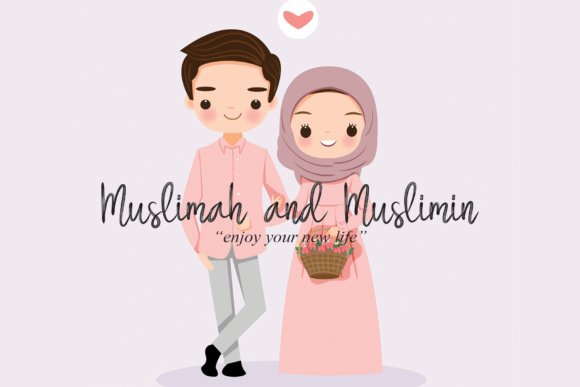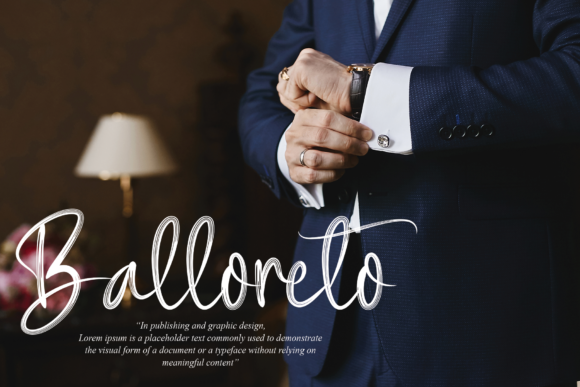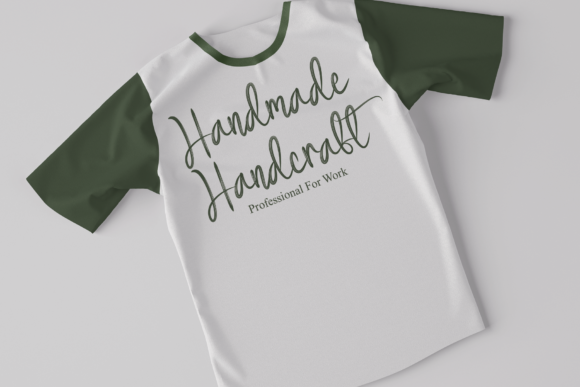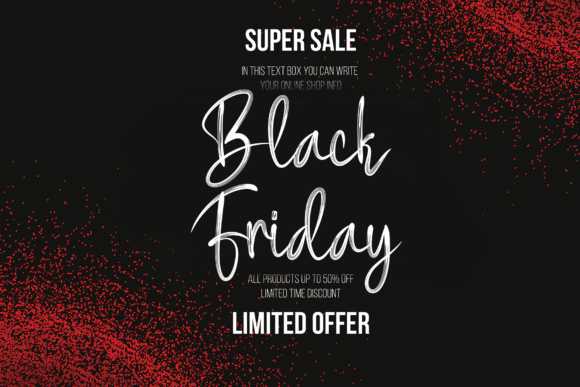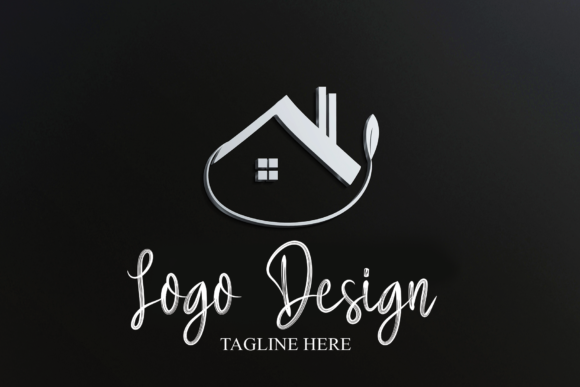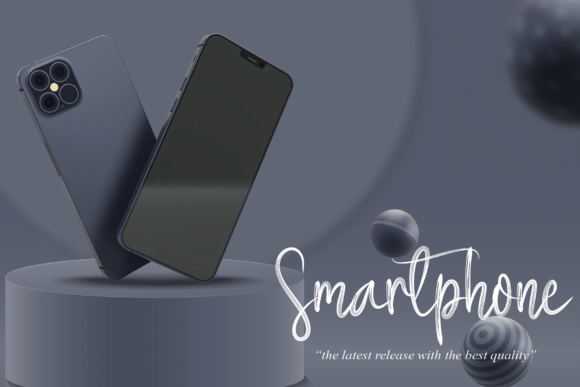
Introducing Handika Font: Elevate Your Designs with Luxury and Elegance
Are you a designer or crafter looking for a unique and stunning font to add a touch of luxury to your projects? Look no further than Handika Font, a beautiful and light handwritten font that is sure to make your designs stand out. With its distinctive feel and impressive impact, Handika Font is the perfect choice for anyone seeking to add a touch of elegance and sophistication to their work.
The Unique Features of Handika Font
Handika Font boasts a range of features that set it apart from other fonts. Its light and airy texture gives it a sense of delicacy and refinement, while its handwritten style adds a touch of warmth and personality. The font’s unique feel is both modern and timeless, making it suitable for a wide range of design projects, from branding and advertising to packaging and digital media.
Adding Luxury to Your Designs
So, what makes Handika Font so effective at adding a touch of luxury to your designs? The answer lies in its ability to evoke a sense of high-end quality and sophistication. Whether you’re working on a luxury brand identity, a premium product packaging design, or a high-end digital project, Handika Font is sure to impress. Its elegant lines and refined texture give your designs a sense of exclusivity and refinement, making them stand out from the crowd.
Tips for Using Handika Font in Your Designs
To get the most out of Handika Font, here are a few tips to keep in mind:
- Use it sparingly: While Handika Font is beautiful on its own, it can be even more effective when used sparingly. Try using it as a headline font or for key messaging to add emphasis and impact.
- Pair it with complementary fonts: Handika Font pairs well with a range of other fonts, from clean and modern sans-serifs to elegant and refined serifs. Experiment with different combinations to find the one that works best for your project.
- Experiment with different colors: Handika Font looks stunning in a range of colors, from rich and bold to soft and pastel. Try experimenting with different colors to find the one that works best for your design.
Handika Font in Digital and Print Media
One of the best things about Handika Font is its versatility. Whether you’re working on a digital project, such as a website or social media graphic, or a print project, such as a brochure or business card, Handika Font is sure to perform beautifully. Its clear and legible texture makes it easy to read, even at small sizes, while its elegant lines and refined texture give it a sense of sophistication and luxury.
What Designers and Crafters are Saying About Handika Font
In conclusion, Handika Font is a beautiful and light handwritten font that is sure to add a touch of luxury and elegance to any design project. With its unique feel and stunning impact, it’s the perfect choice for designers and crafters looking to elevate their designs and take them to the next level. So why wait? Add Handika Font to your favorite creations today and see the amazing results for yourself!